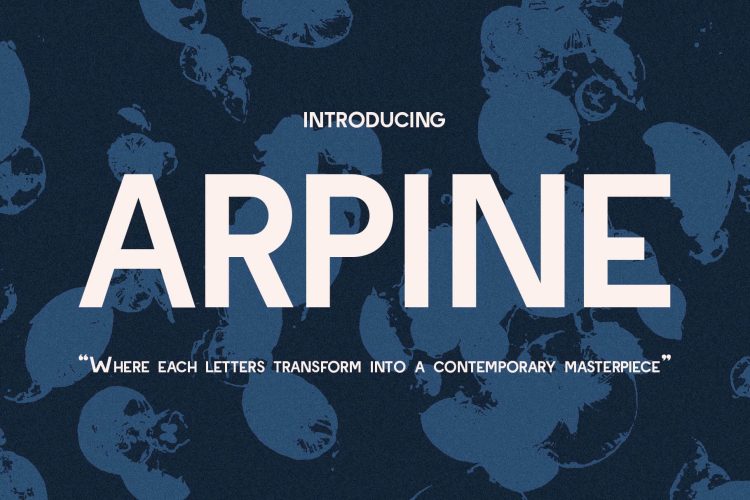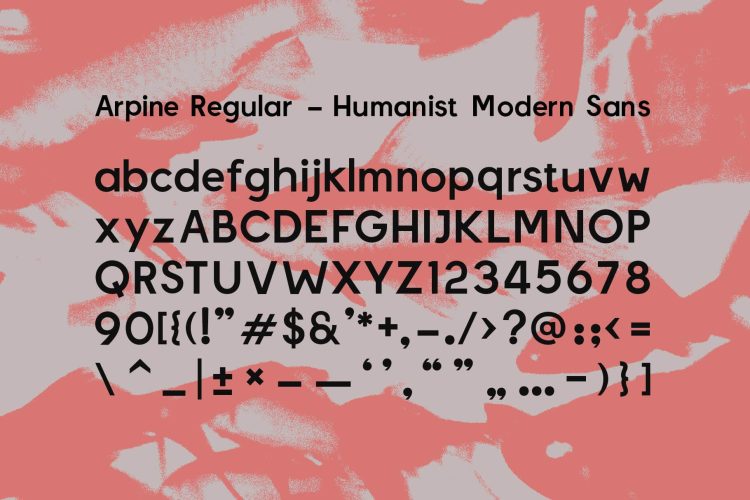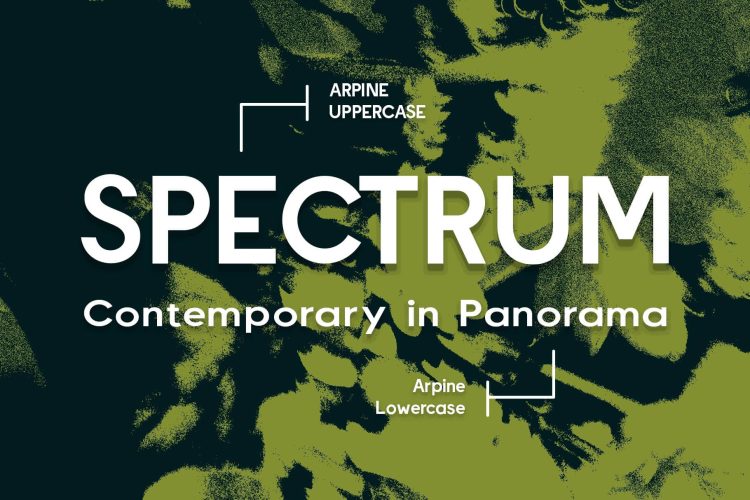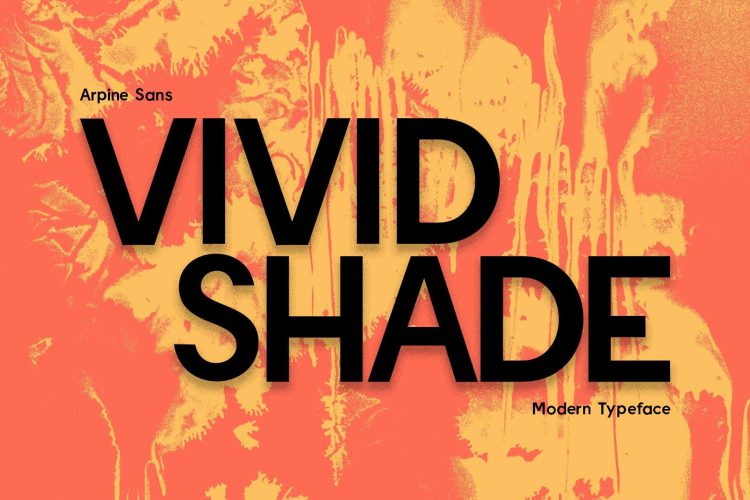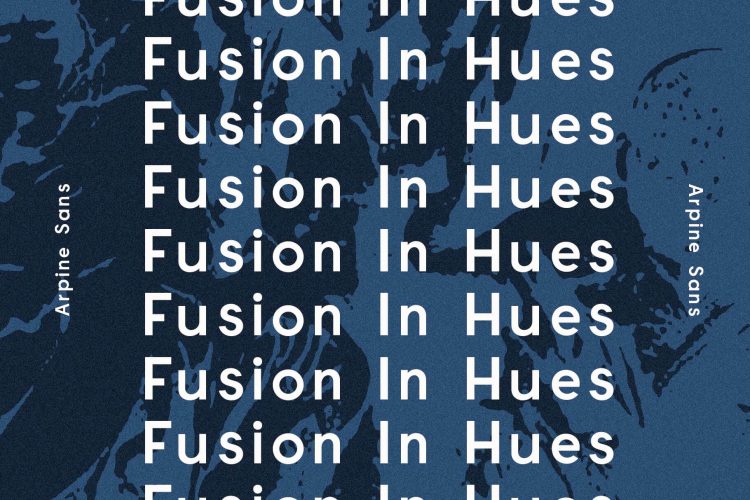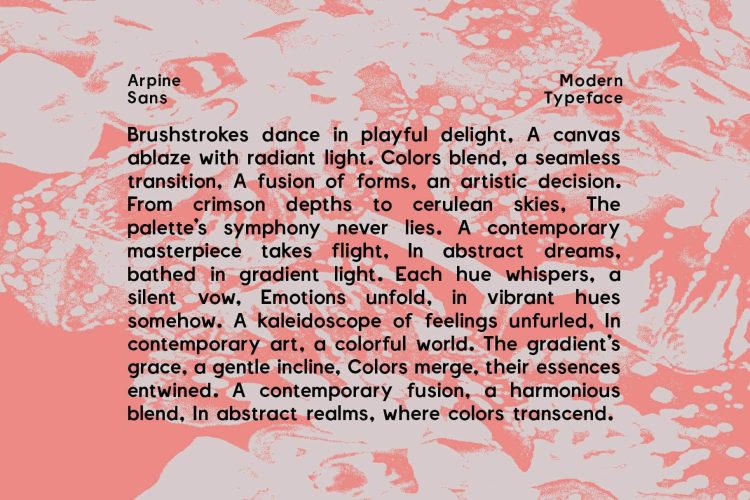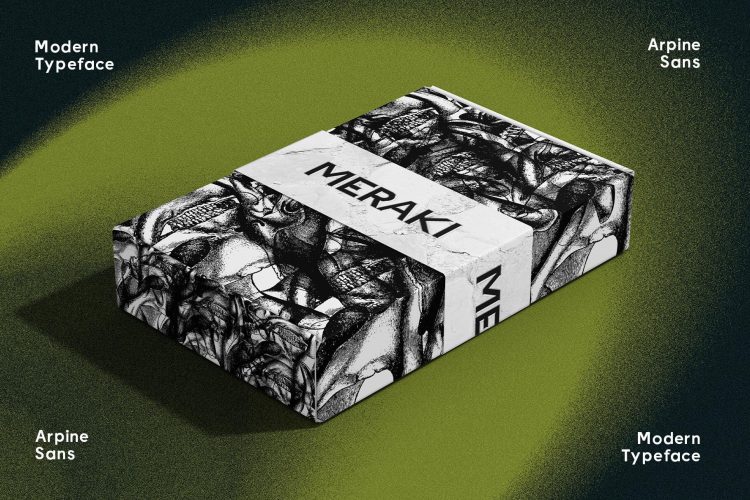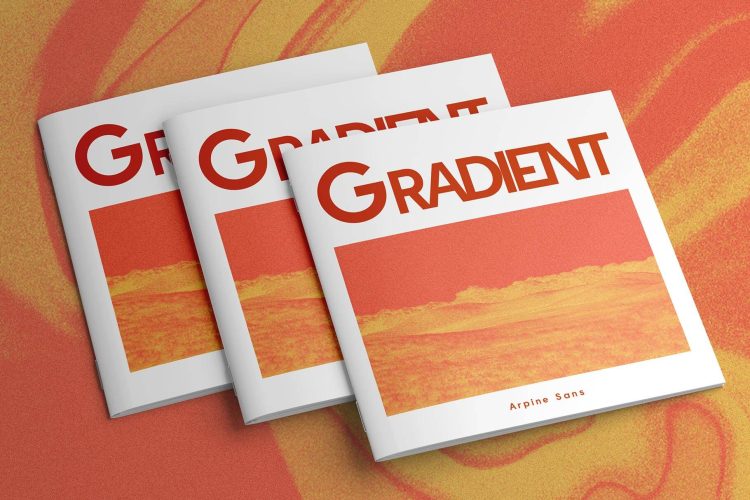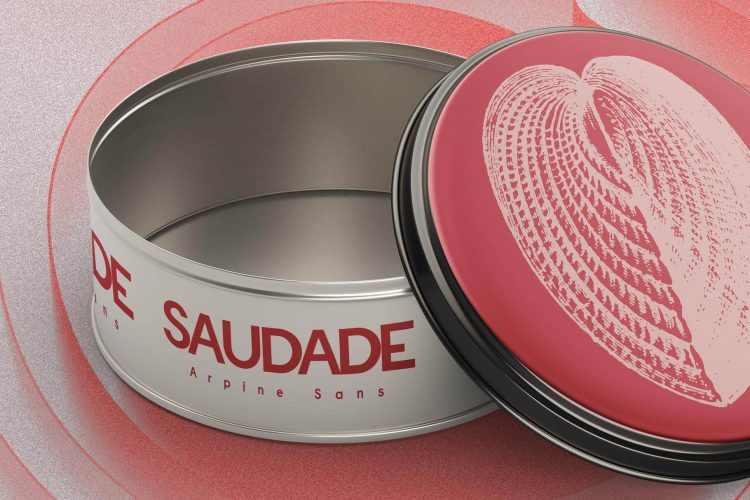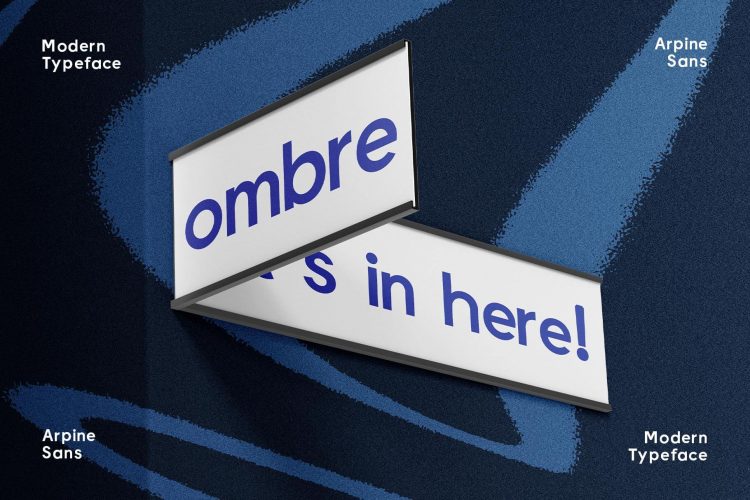
Arpine – a sans-serif font with a unique and contemporary look. The shapes of the letters are both simple and complex, giving the effect of a font that is both eye-catching and sophisticated. The strokes of the letters are bold, with sharp angles and clean lines, this gives the font a strong and confident look. The letterforms in Arpine are unique and distinctive, with unusual shapes and proportions. This makes the font stand out from other sans-serif fonts. Arpine is a stylish and unique sans-serif font that is perfect for designers who want to create contemporary and eye-catching designs.